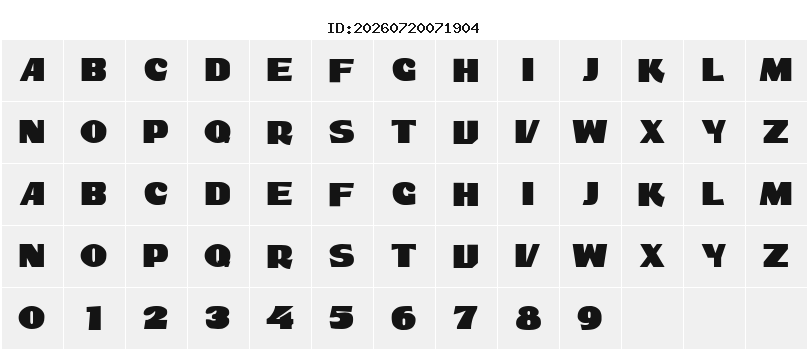
ft25 Preview
• Font Name: ft25
• Full Font Name: ft25
• Designer: FT Content Provider
About ft25.ttf
ft25.ttf is a modern, elegant sans-serif font designed for ultimate readability and visual harmony. Perfect for branding, headlines, web design, and print materials.